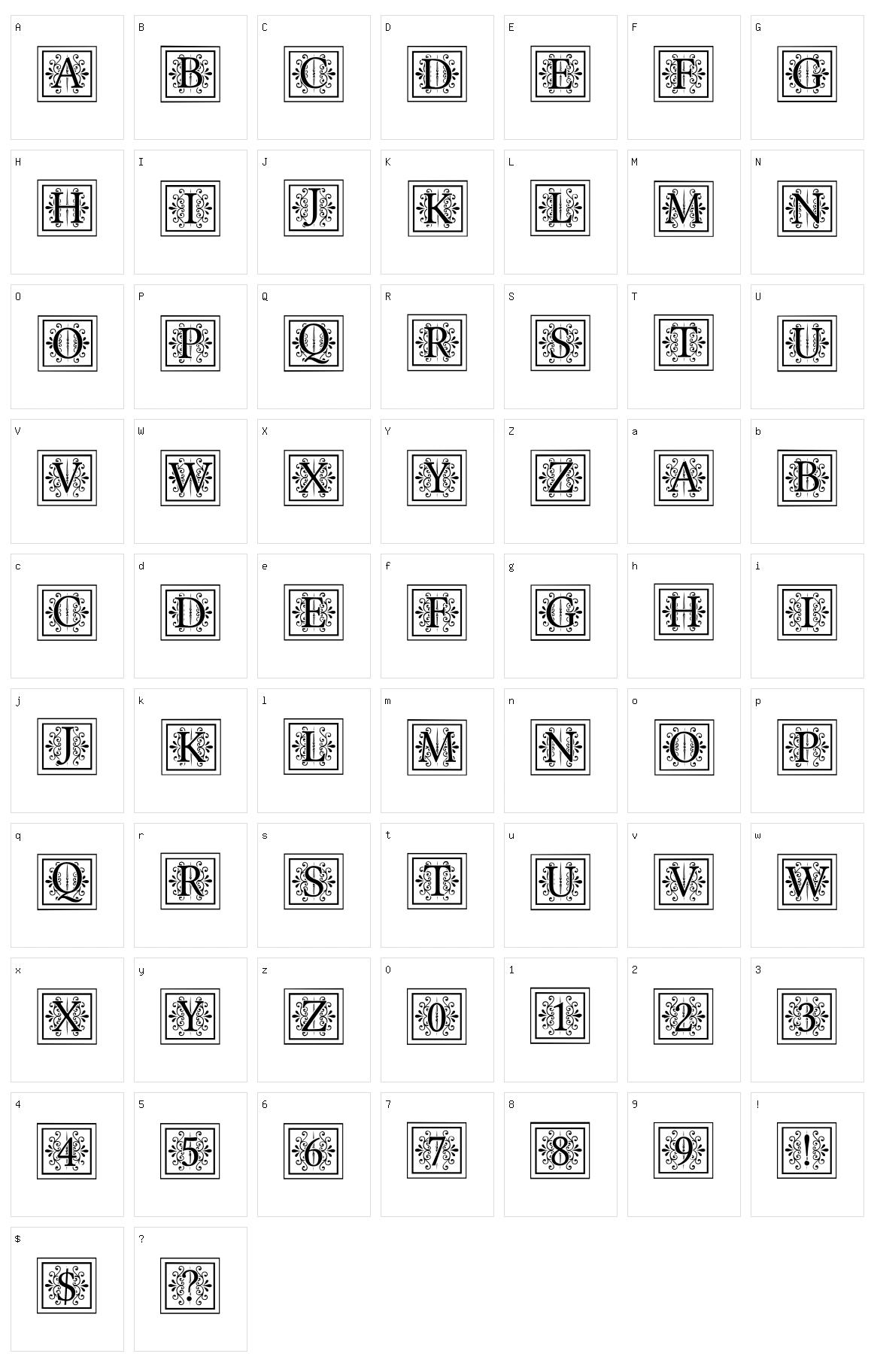
Apex Lake Font
Apex Lake is a decorative display font using ornamental squares. This font may be heavy to load. It is based on Linux Libertine. Like all other JLH Fonts, this font is in the public domain and comes with the Euro sign.